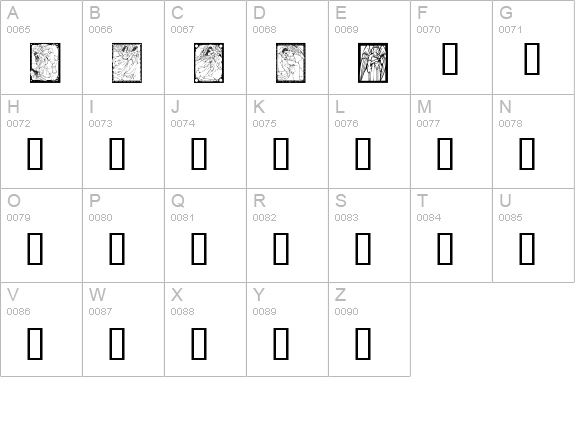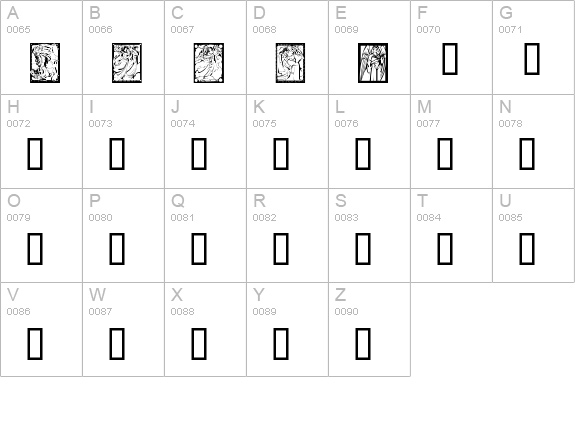
KR Fantastic Angels Font Details
Introducing KR Fantastic Angels font, a whimsical and enchanting typeface that will transport your designs to a realm of magic and wonder. This delightful font features intricate angelic motifs that exude elegance and charm. With its graceful curves and intricate details, KR Fantastic Angels font is perfect for adding a touch of fantasy to your projects. Whether you're creating invitations, greeting cards, or branding materials, this font will bring a sense of ethereal beauty to your designs. Best of all, KR Fantastic Angels font is available for free download at FontsMarket.com. Embrace the enchantment and download this stunning font today to elevate your designs to new heights of creativity and sophistication.